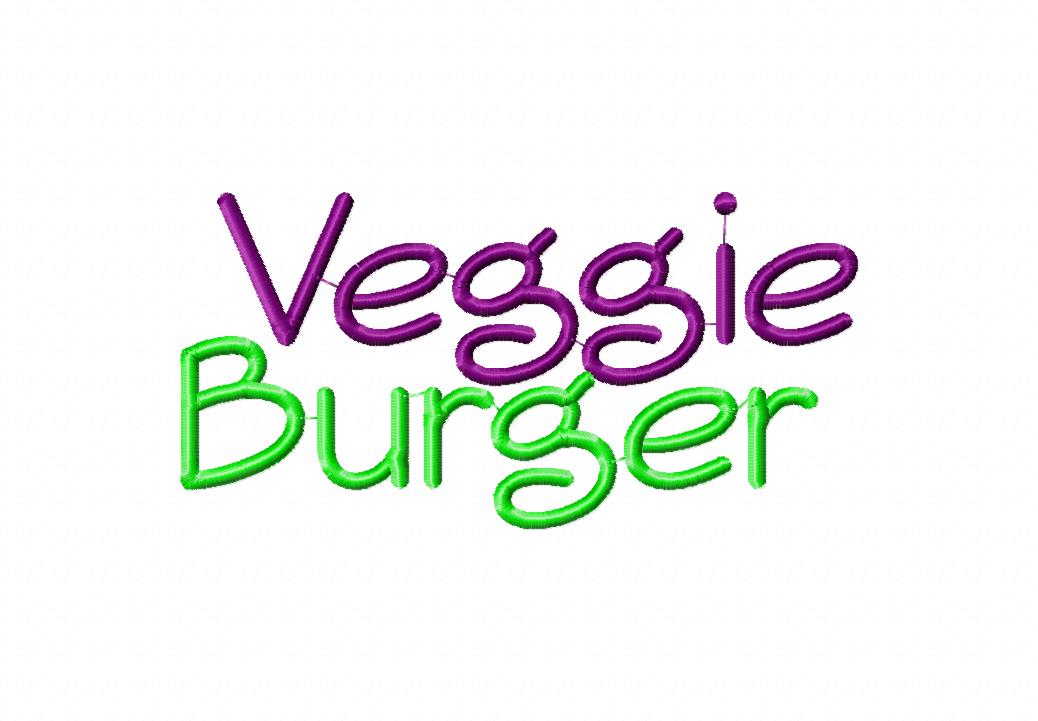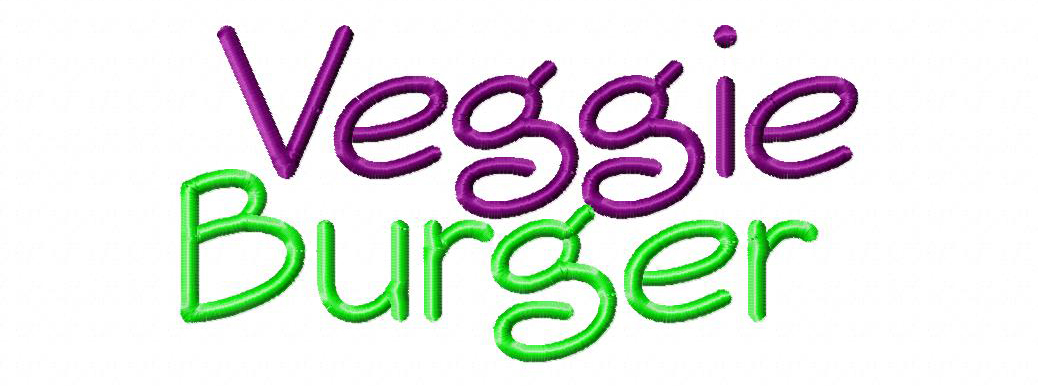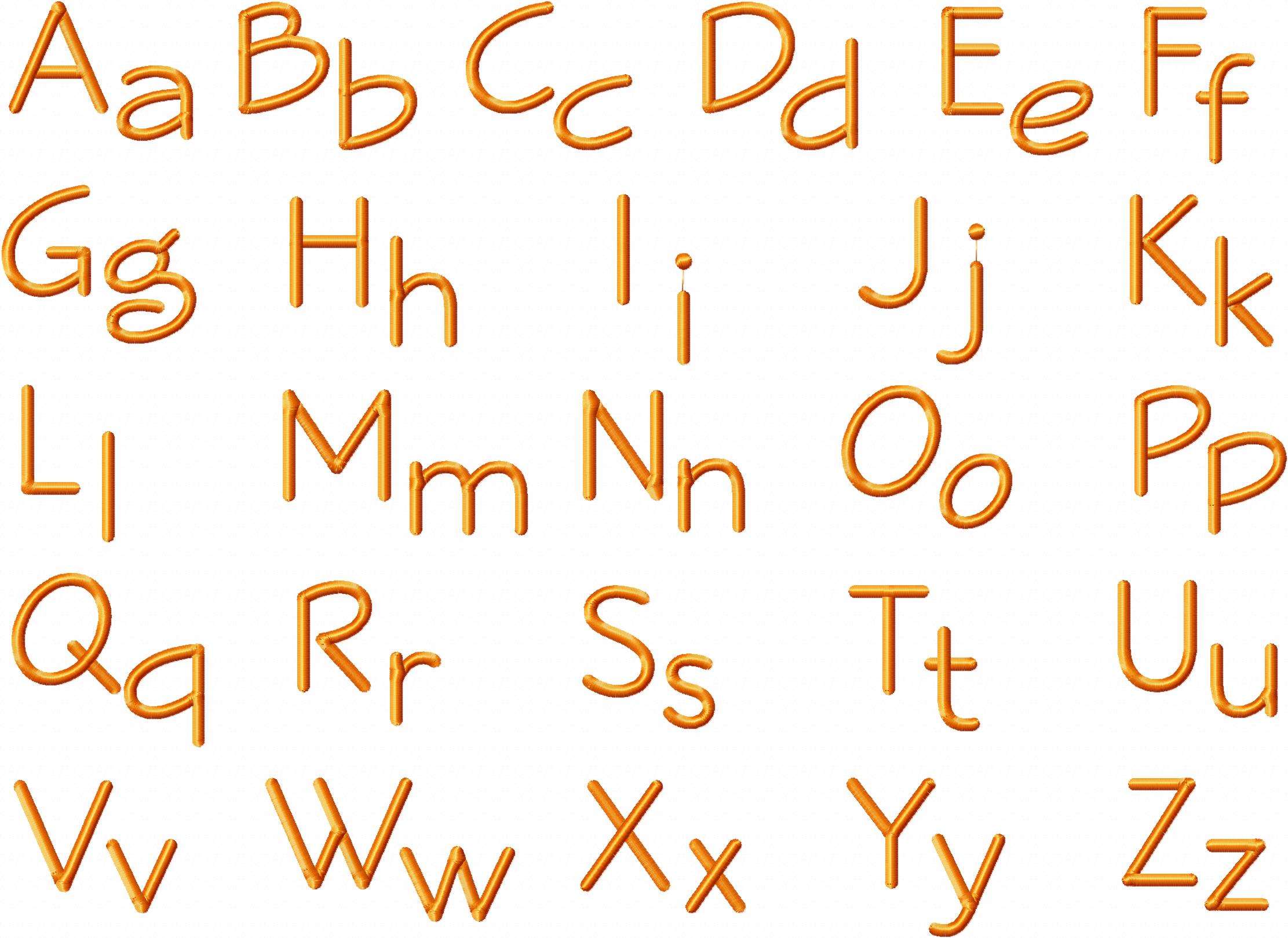
This delightful font is all cool and classy! Great for Monogramming.
Includes all Uppercase and Lowercase Letters, Numbers and Puncuation in all of the following sizes: 1" 2" and 3"